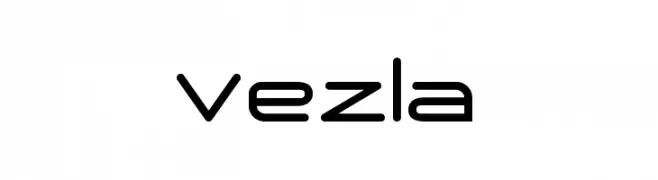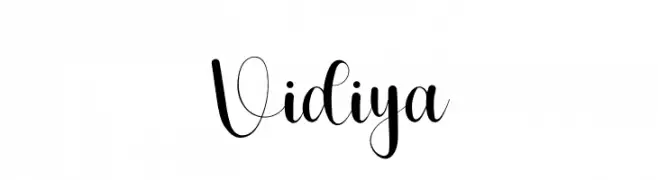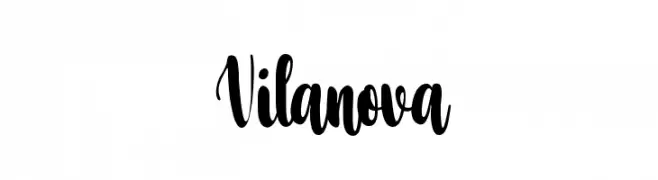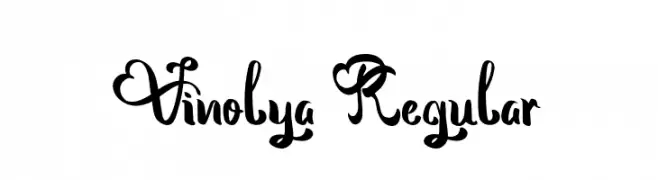
A modern, geometric font with rounded edges and a monospaced appearance.
A sleek, modern italic font with smooth, continuous lines and a futuristic appeal.
A bold, angular font with a futuristic and geometric design.
A bold, angular font with a futuristic, geometric style.
A playful, bold font with a wavy, whimsical design.
A cursive, handwritten font with elegant, flowing strokes.
A bold, playful handwritten font with thick strokes and an organic feel.
An elegant, flowing script font with graceful loops and ornate uppercase letters.
A bold, expressive script font with flowing, cursive letterforms.
A whimsical, decorative font with bold strokes and intricate swirls.